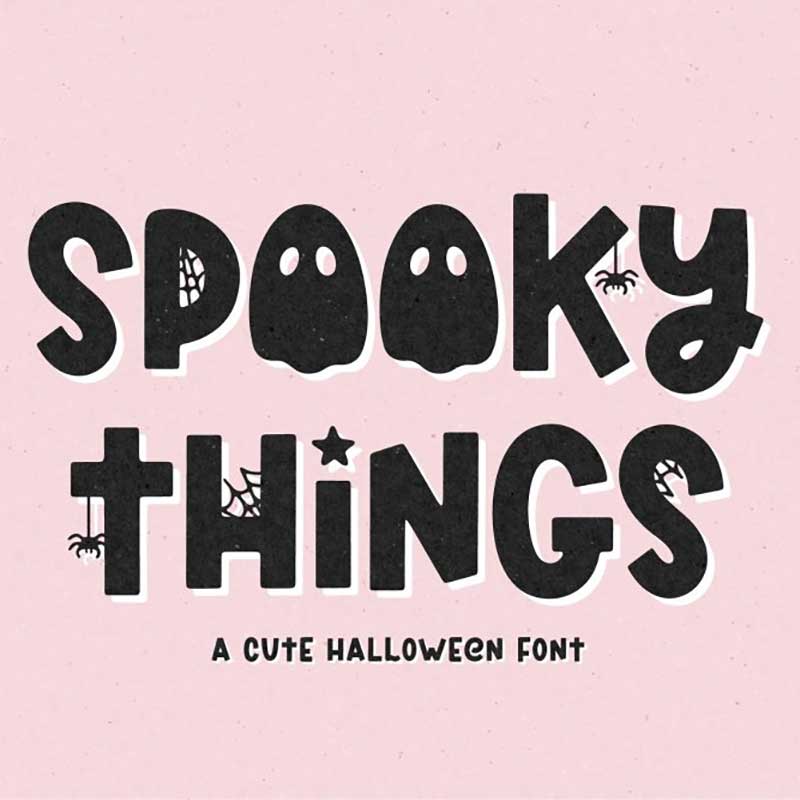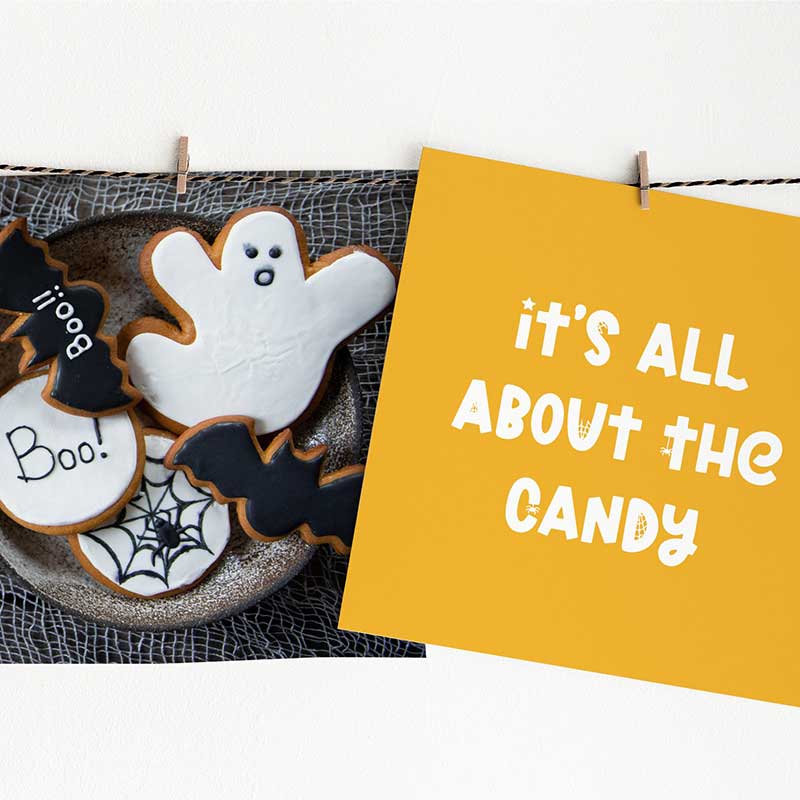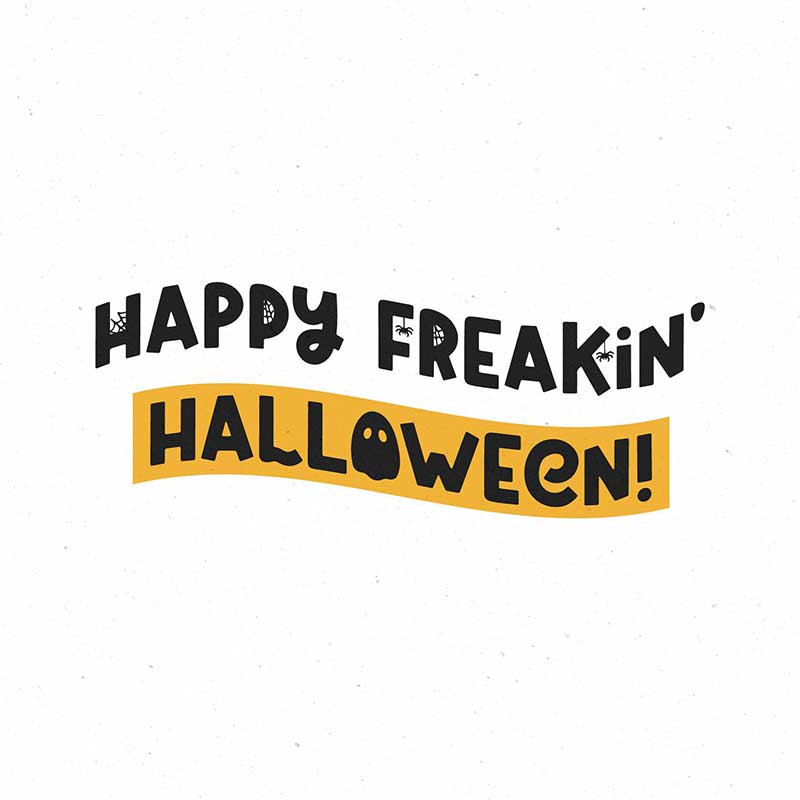
Spooky Things – Cute Halloween Font
Introducing “Hey Boo! Spooky Things” – your go-to Halloween typography delight, adorned with playful ghosts, creeping spiders, and intricate cobwebs. Ideal for conjuring up bewitching logos, enchanting packaging, spirited apparel, greeting cards, captivating posters, whimsical quotes, social media graphics, charming stickers, and a host of other ghoulishly creative designs.